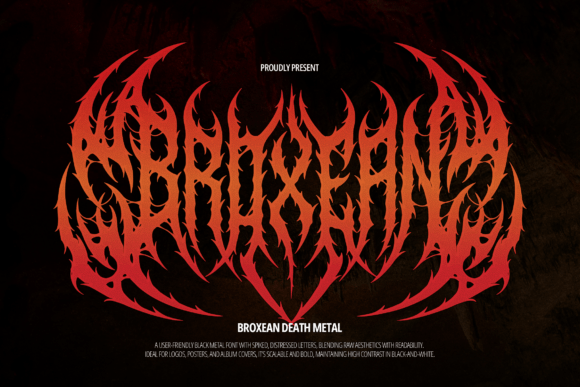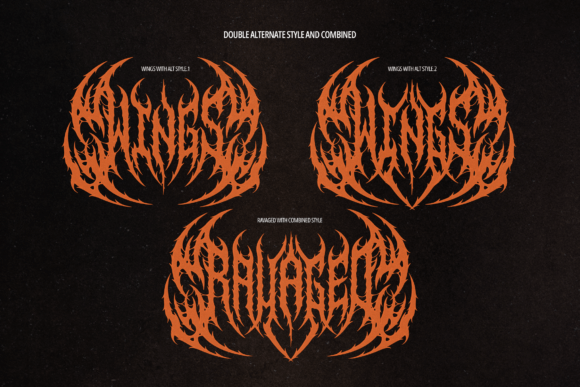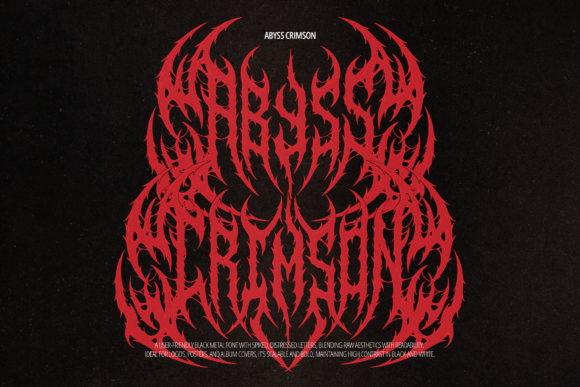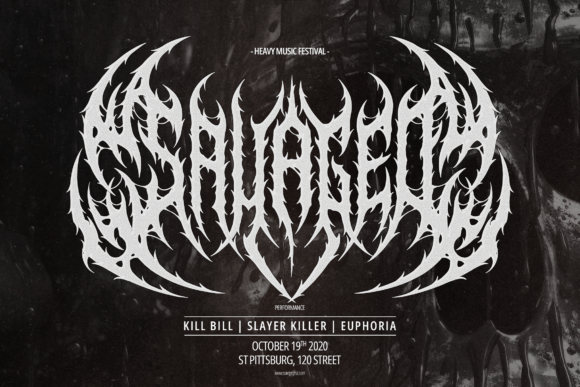
Broxean Font: A Bold & Grunge Display Font for Intense Logo Design
About the Broxean Font
The wait is over! The incredible Broxean Font is now available for your design toolkit. Broxean is a death metal band known for heavy, intense music with deep, growling vocals and powerful guitar riffs. Their sound is dark and aggressive, often exploring themes of struggle and strength. Fans enjoy their intense energy and complex music style that keeps them engaged.
Broxean, the font, mirrors the band’s intensity. Its strong, angular forms convey power and aggression, making it ideal for impactful headlines, logos for extreme sports brands, or edgy posters. It excels in short, punchy statements where its bold character shines.
However, Broxean’s weight and sharp details are unsuitable for body text or lengthy paragraphs; readability suffers at smaller sizes. Avoid using it in UI contexts where legibility is paramount.
Pairing Broxean with a clean sans-serif like Montserrat for supporting text creates a strong contrast, balancing its aggressive personality. For a more refined approach, consider pairing it with a classic serif like Garamond for a touch of elegance that tempers its intensity.